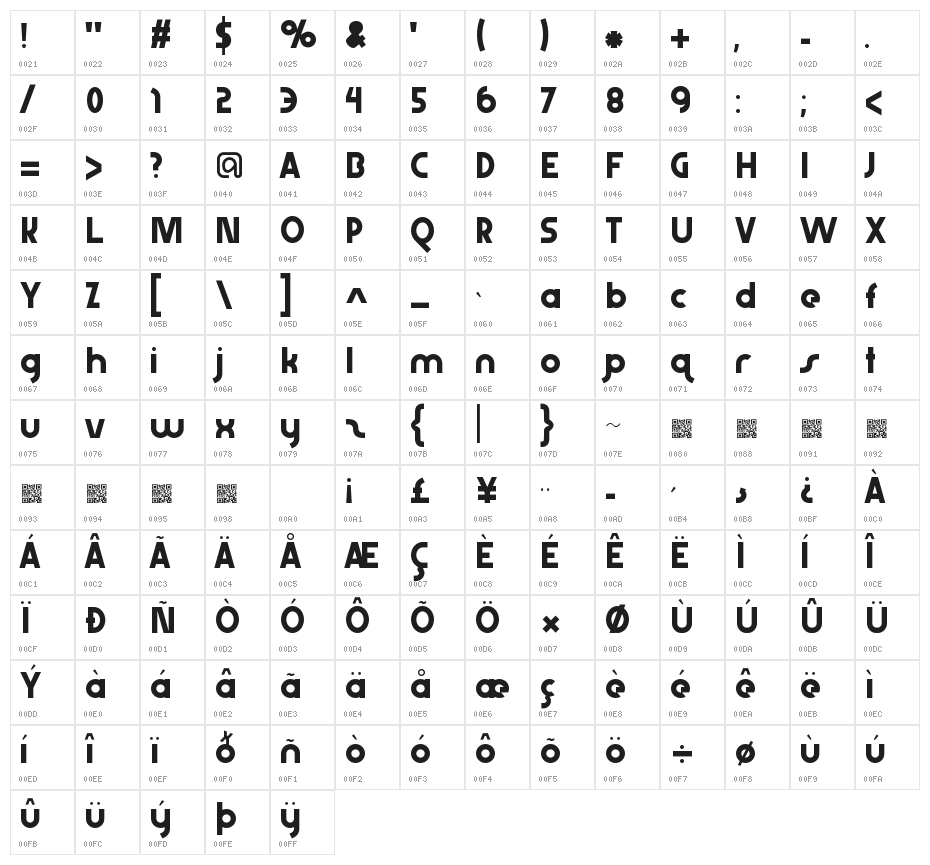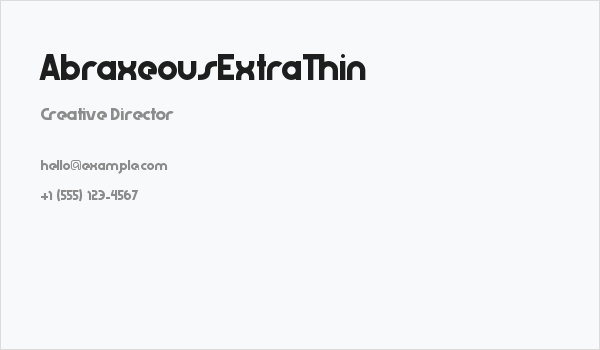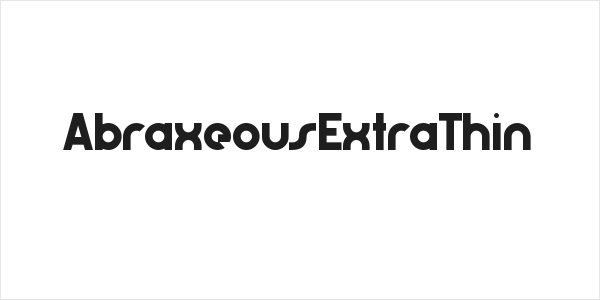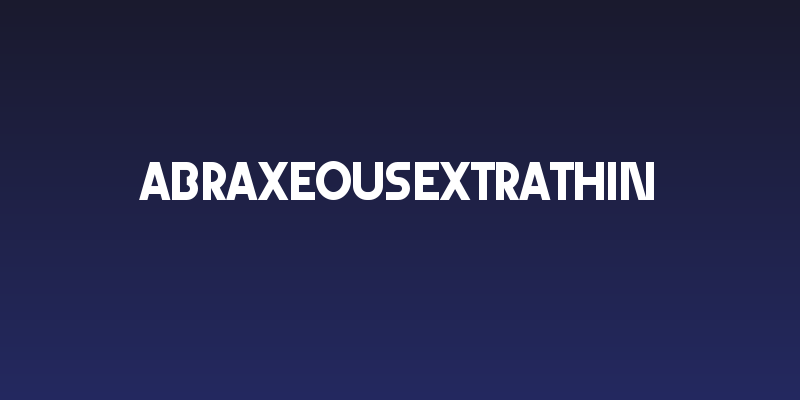
AbraxeousExtraThin Font
AbraxeousExtraThin Description
This font features a bold and geometric design, characterized by its strong, angular lines and uniform stroke width. The uppercase letters are particularly striking, with a modern and assertive appearance. The lowercase letters maintain the geometric theme, offering a cohesive look across different text cases. Numbers are equally bold and consistent, ensuring readability and impact. Special characters are designed with the same attention to detail, making them suitable for various applications. The overall style is modern and assertive, making it ideal for projects that require a strong visual presence.
| Proposed Projects | Ideal for branding, headlines, posters, and any design requiring a strong visual impact. |